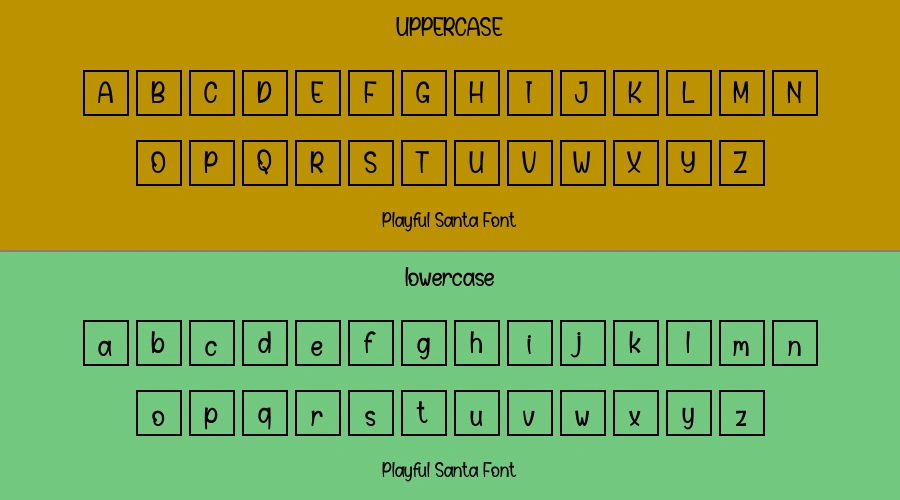
About Playful Santa Font
Playful Santa Font stands out for its distinctive combination of assertive angles and exceptional clarity. Ideal for classic books, it provides the longevity and creative impact that professional projects demand. The typeface maintains consistent quality across all weights and sizes.
Key features include refined monoline strokes and practical mathematical symbols, enhancing typographic expression. In product names applications, Playful Santa Font demonstrates exceptional large format impact. The x-height and engineering heritage contribute to its distinctive character and professional appeal.